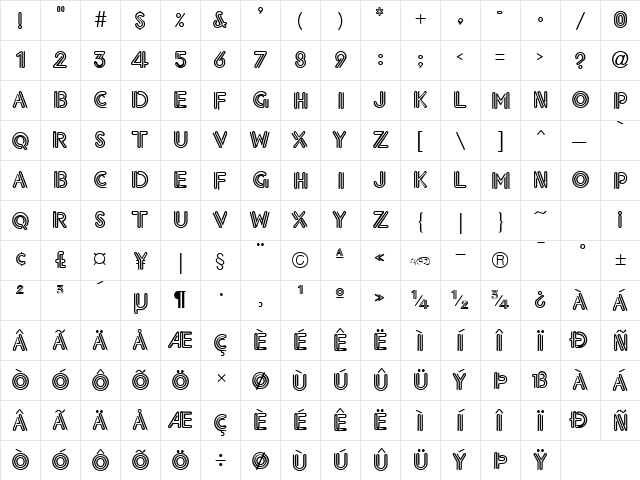
Neon Thick Regular
Design Context for Neon Thick Typeface
Neon Thick channels digital-age aesthetics through its sharp, structured letterforms — ideal for brands that want to signal innovation.
Pro Tip: Use Neon Thick in combination with a neutral sans for body text. Let it define the brand voice in headlines while keeping reading comfortable elsewhere.